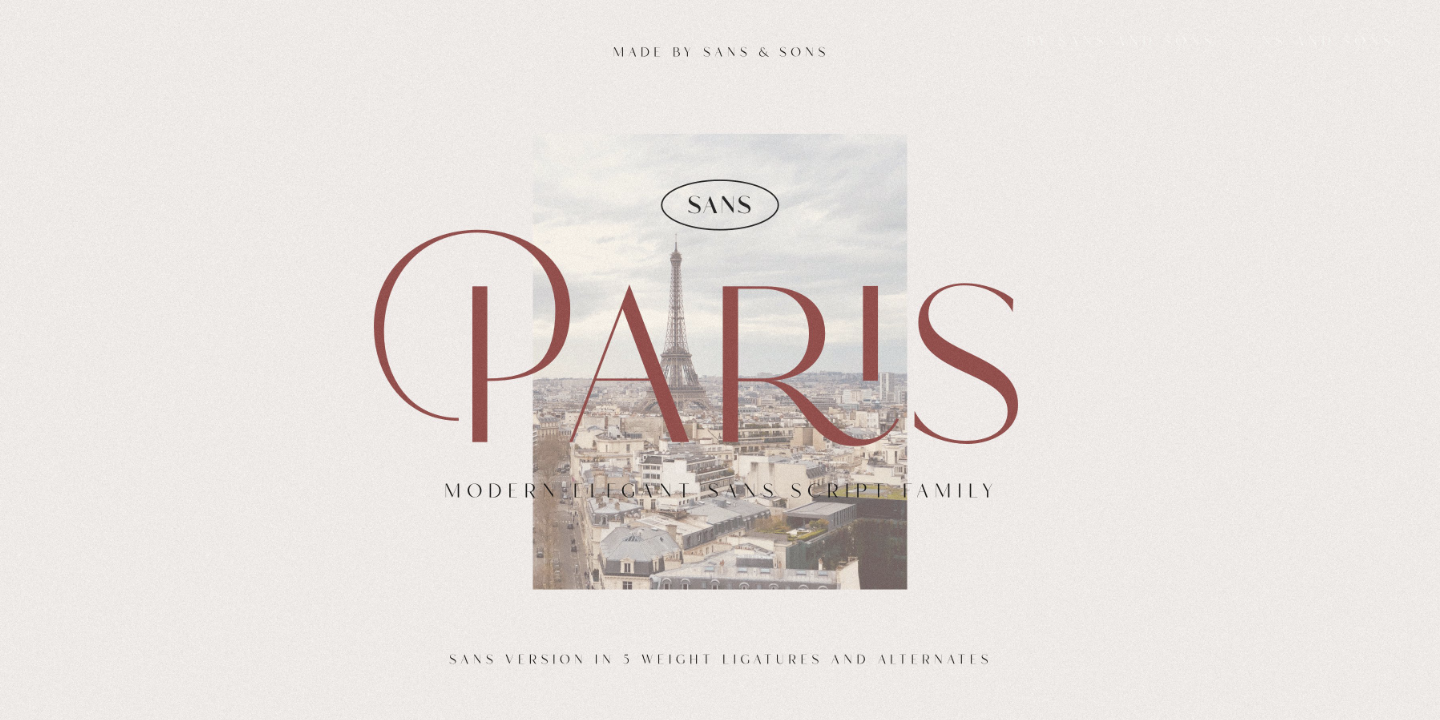
Hello Paris Sans Font is perfect for French fashion boutiques, Parisian cafe branding, French tourism campaigns, elegant French restaurants, Paris travel guides, French cultural events, sophisticated French lifestyle brands, Parisian wedding invitations, French language schools, and chic French interior design studios.
What makes Hello Paris Sans Font exciting is its Parisian sophistication and French elegance that captures the essence of the City of Light with cosmopolitan charm and effortless chic. This enchanting typeface embodies the spirit of Parisian living with its refined character forms and fashion-inspired proportions that evoke tree-lined boulevards, sidewalk cafes filled with animated conversation, and the kind of effortless style that makes Paris the world's fashion capital. The font's sophisticated character creates an immediate sense of French refinement and the kind of cultural elegance that defines authentic Parisian lifestyle.
Hello Paris Sans Font family includes regular weight with elegantly crafted character designs featuring Parisian curves and French proportions. The typeface maintains excellent readability while showcasing its distinctive French personality through stylishly designed letterforms that seem to whisper "bonjour" with the same graceful charm that makes every Parisian encounter feel like a scene from a romantic film.
French brand designers consistently choose Hello Paris Sans Font Free Download for projects requiring authentic Parisian appeal and French sophistication. This remarkable typeface brings the elegance of French culture to brand communications, combining Parisian aesthetics with continental refinement to create memorable French experiences. The elegantly designed characters ensure sophisticated positioning across all applications, making it essential for French brands, luxury retailers, and any organization seeking to communicate the timeless elegance and cultural sophistication that defines authentic Parisian style through Hello Paris Sans Font Free Download.